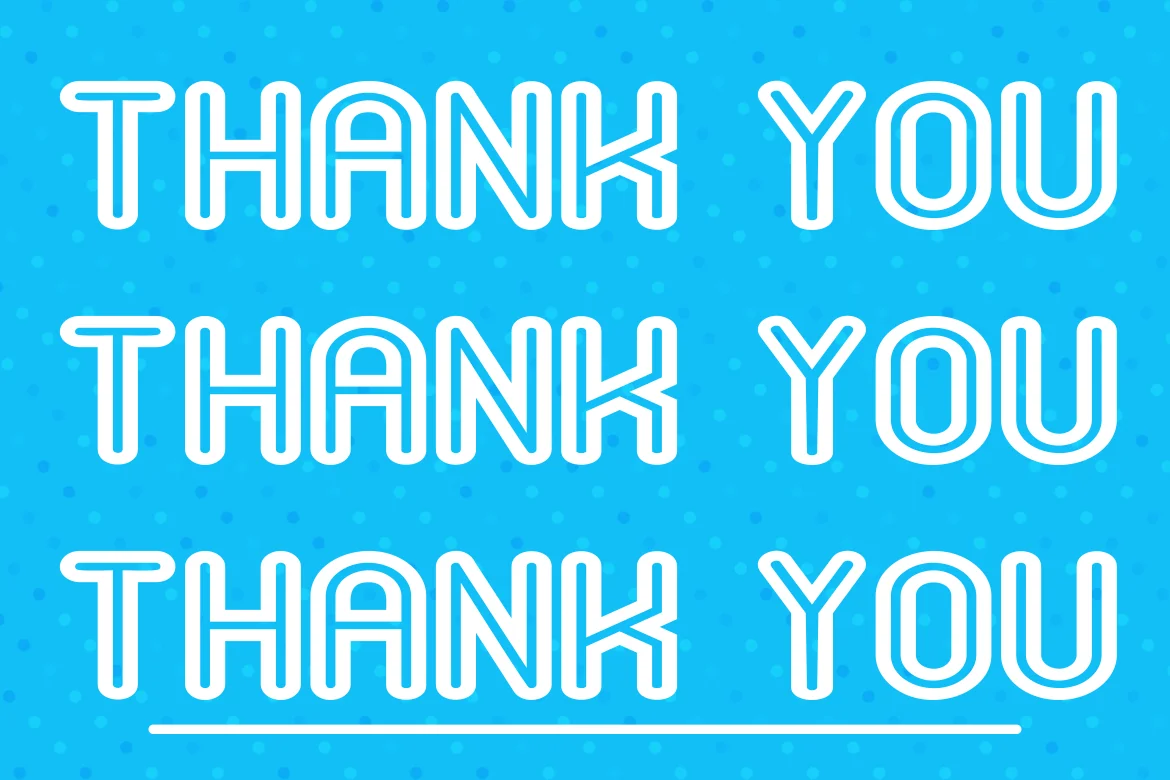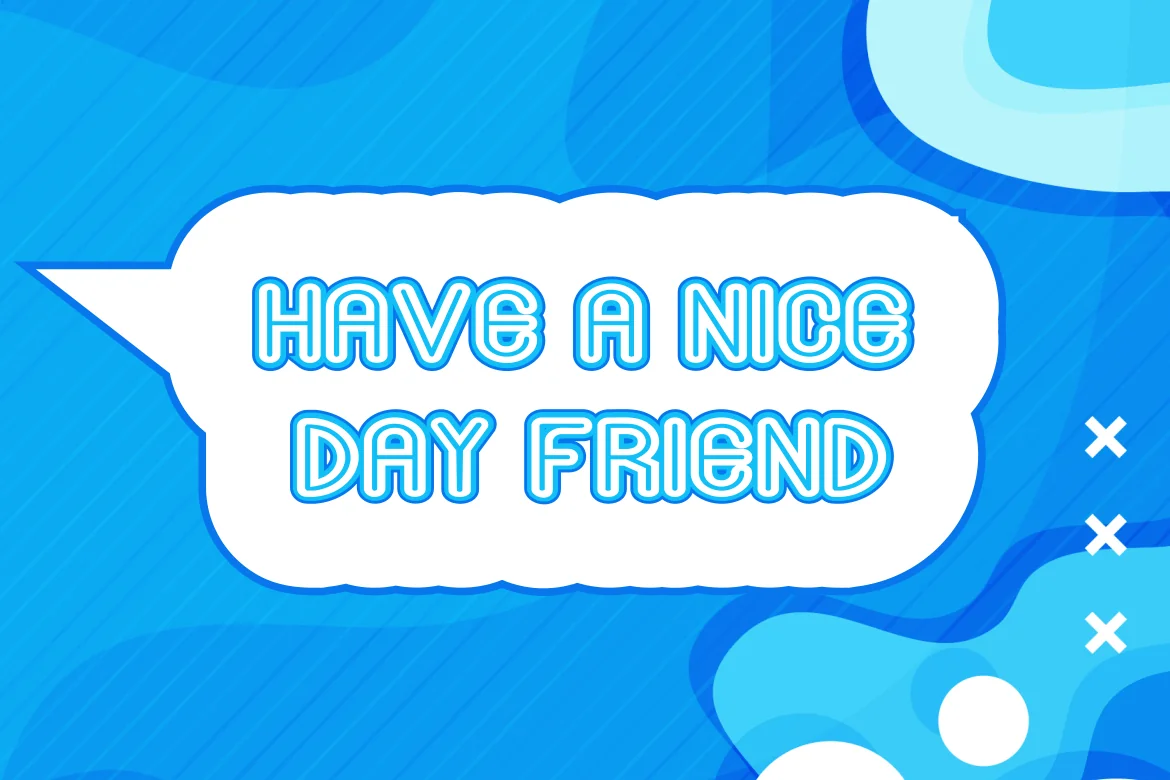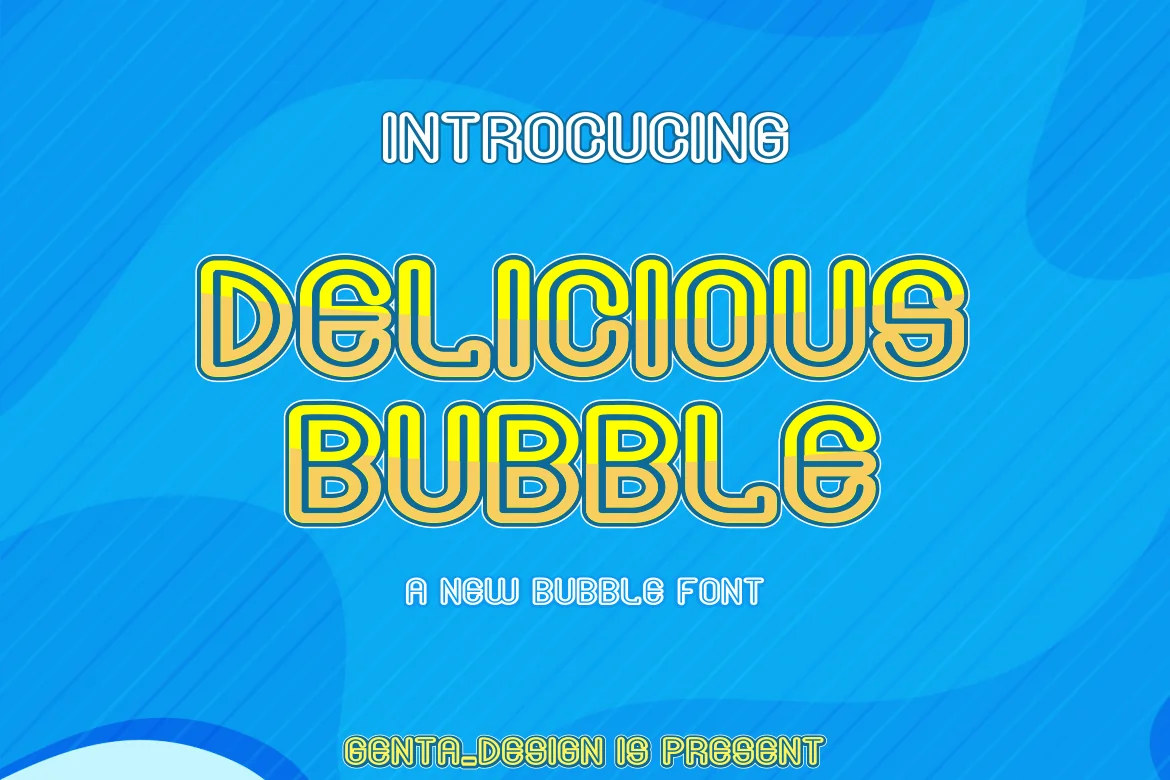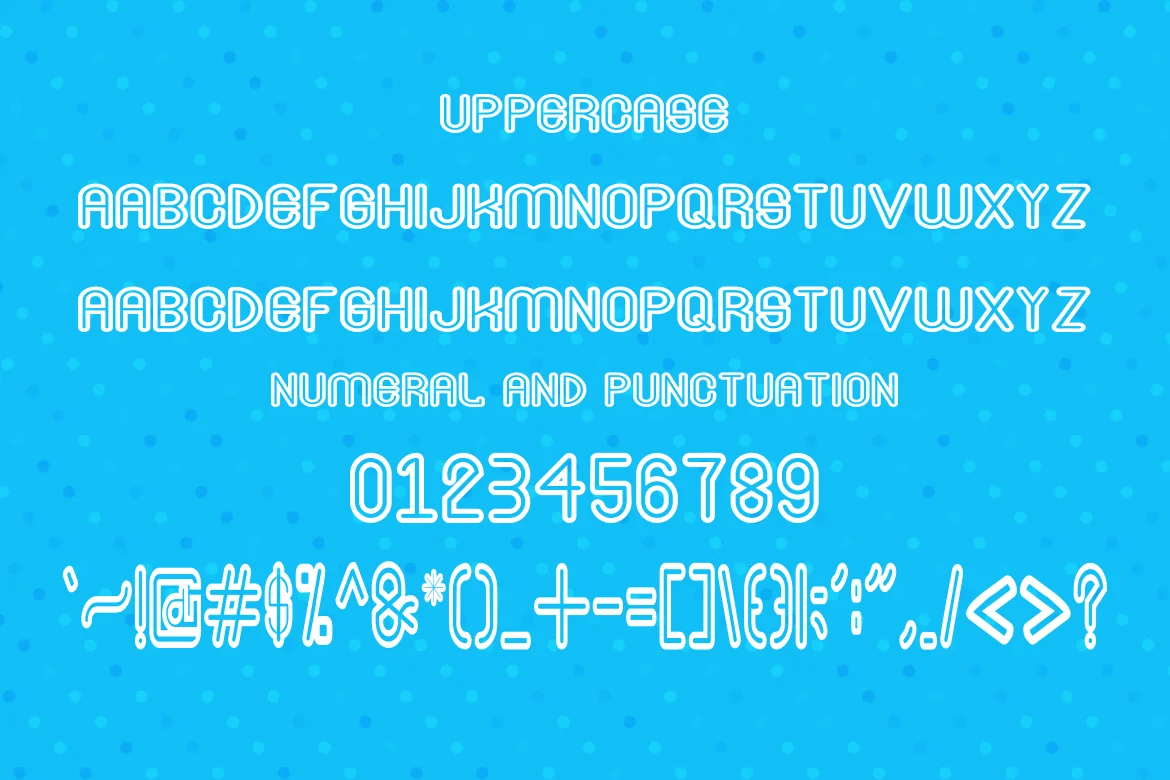
Deliciousbubble Cute Font
Introducing our new product Deliciousbubble Cute Font Modern Font
Deliciousbubble Cute Font – Modern Font is a bold and authentic display font. The font is suitable for any branding project like logo, t-shirt printing, esport, and many more. outstanding in a wide range of contexts.